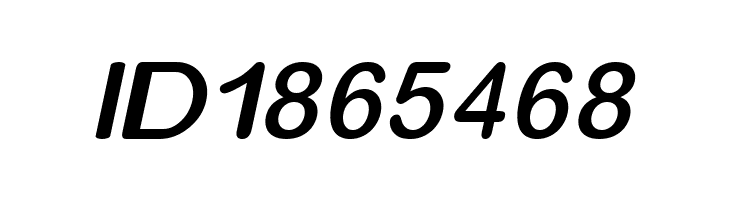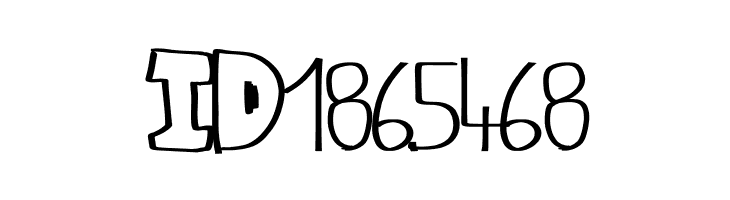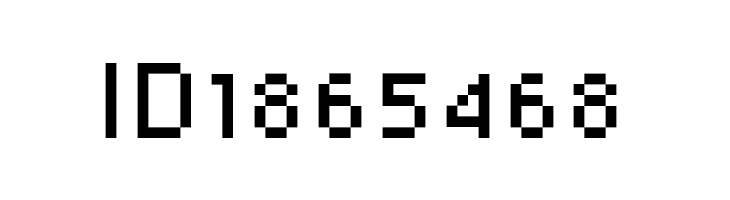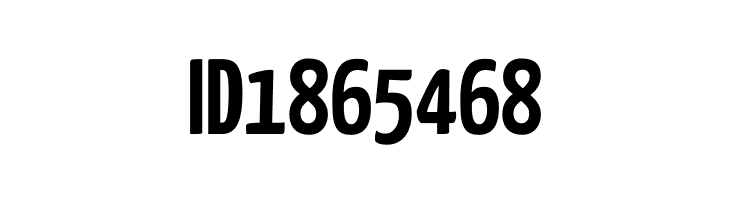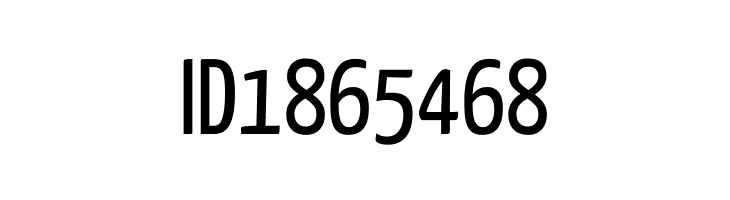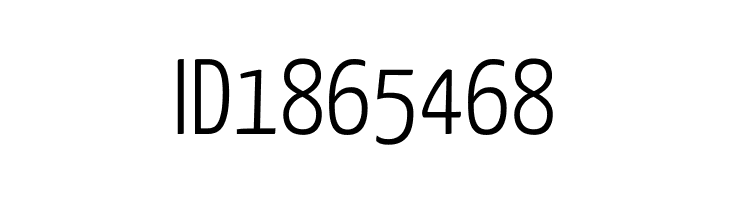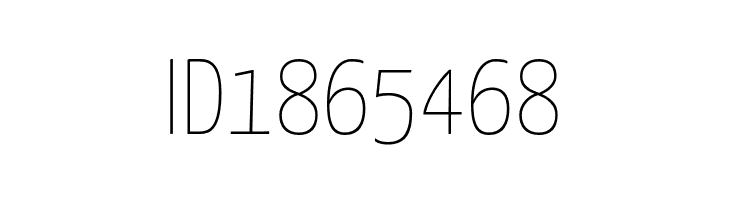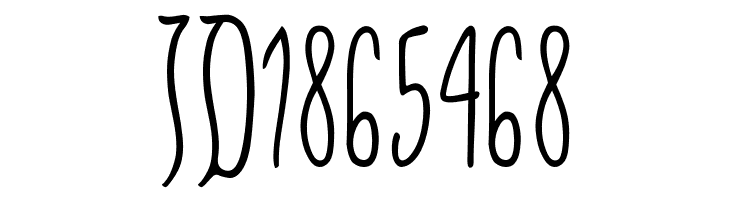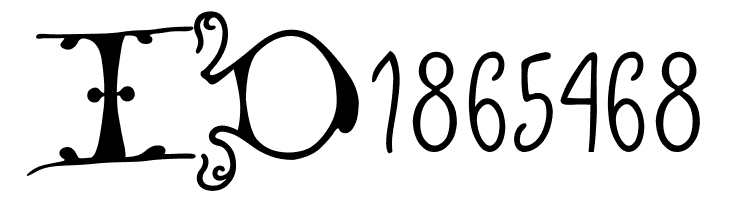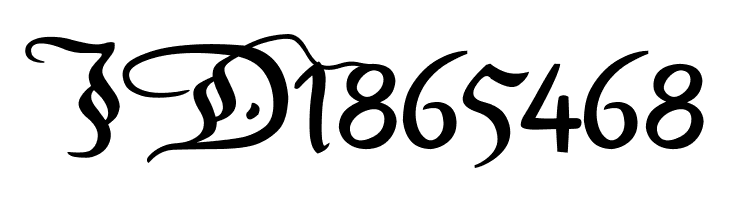
• Xero Thin Italic
A sleek, modern, thin italic font with a clean and professional appearance.
• XiBeronne
A traditional Blackletter font with ornate, medieval-inspired design.
• Xilo Galdino
A bold, handcrafted font with high contrast and irregular, organic shapes.
• Xilo Galdino Outline
A bold, outlined font with a vintage and decorative style.
• Xilo Prosa
A bold, handcrafted font with a rugged, organic appearance.
• XIPAROS
An artistic and whimsical font with elongated, flowing letterforms.
• XiparosLombard
An ornate and decorative font with intricate flourishes and whimsical character shapes.
• Xirwena
An ornate and decorative script font with intricate details.
• Xolto-Regular
A bold, geometric font with a retro digital style.
• YAA Type - FREE
A playful and whimsical font with rounded, slightly irregular letterforms.
• Yanone Kaffeesatz
A modern, clean sans-serif font with a slightly condensed style.
• Yanone Kaffeesatz Bold
A bold, modern sans-serif font with a clean and impactful design.
• Yanone Kaffeesatz Bold
A bold, modern sans-serif font with a compact and efficient design.
• Yanone Kaffeesatz Extra Light
A sleek, extra-light sans-serif font with a modern and condensed design.
• Yanone Kaffeesatz Extra Light
A modern, extra-light sans-serif font with a narrow, elongated style.
• Yanone Kaffeesatz ExtraLight